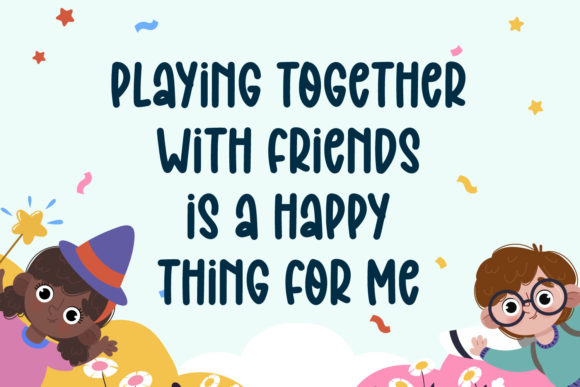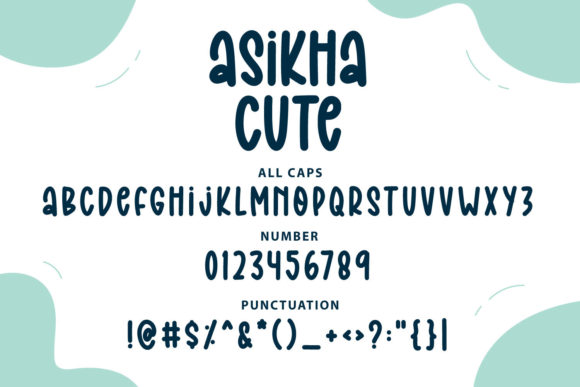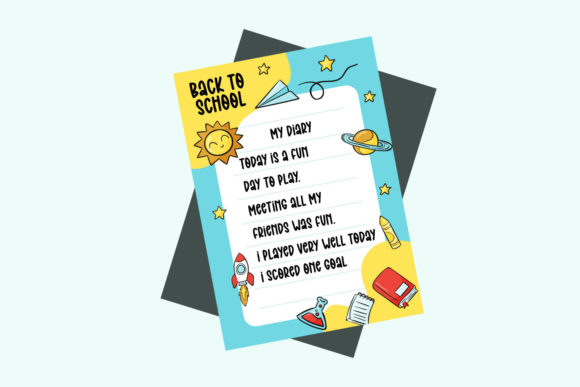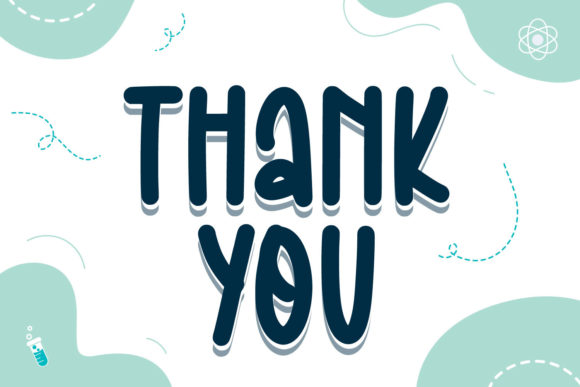
Introduction to Asikha Cute Font
Have you ever been working on a creative project, pouring your heart and soul into every detail, only to feel like something is missing? That’s when you stumble upon the perfect design resource – a font that brings your vision to life. For me, that moment came when I discovered the Asikha Cute Font. This high-quality, handwritten font has a way of elevating any creation, making it perfect for designers looking to add a touch of personality to their work.
Whether you’re working on a marketing campaign, a social media post, or a simple greeting card, the Asikha Cute Font is an incredible asset to have in your library. Its casual, cool vibe makes it perfect for a wide range of creative projects, from free download graphics to professional designs. With a transparent background, this font is incredibly versatile and easy to use, making it a valuable addition to any designer’s toolkit.
Key Features of Asikha Cute Font
- High-quality, hand-drawn design perfect for creative projects requiring a unique touch.
- Comes with a transparent background, allowing for easy integration into various design resources.
- Includes 6 different font styles, each with its own distinct charm, providing versatility for your design needs.
- Designed with a playful, whimsical feel, making it ideal for children’s books, greeting cards, and other creative projects.
Honest Review: Asikha Cute Font
I recently had the chance to work with the Asikha Cute Font in a creative project, and I must say it was a great addition to my design resource toolkit. The font’s high quality and adorable design made it perfect for a fun, lighthearted project.
- ✨ The font’s transparent background made it easy to customize and fit seamlessly into my design.
- ✨ I appreciated the wide range of character sets available, making it suitable for various languages.
- ✨ The font’s cute and playful design was exactly what I needed to add a touch of whimsy to my project.
However, I did encounter a few limitations with the font. ⚠️ The font size and style can become somewhat inconsistent when scaling, which may require some manual adjustments. Additionally, the font’s cute design may not be suitable for all types of projects, particularly those requiring a more professional tone.
Overall, I was impressed with the Asikha Cute Font and would recommend it to designers working on fun, creative projects. Its high quality and versatility make it a valuable design resource. Plus, the fact that it’s available for free download is a definite bonus.
The Asikha Cute Font is a high-quality, free design resource ideal for creative projects. Its transparent background and adorable characters make it perfect for adding a personal touch to your designs.
Common Use Cases for Asikha Cute Font
The Asikha Cute Font is ideal for a variety of creative projects, including children’s book illustrations, greeting cards, and social media graphics. Its cute and playful design makes it perfect for adding a personal touch to your designs and engaging your audience.